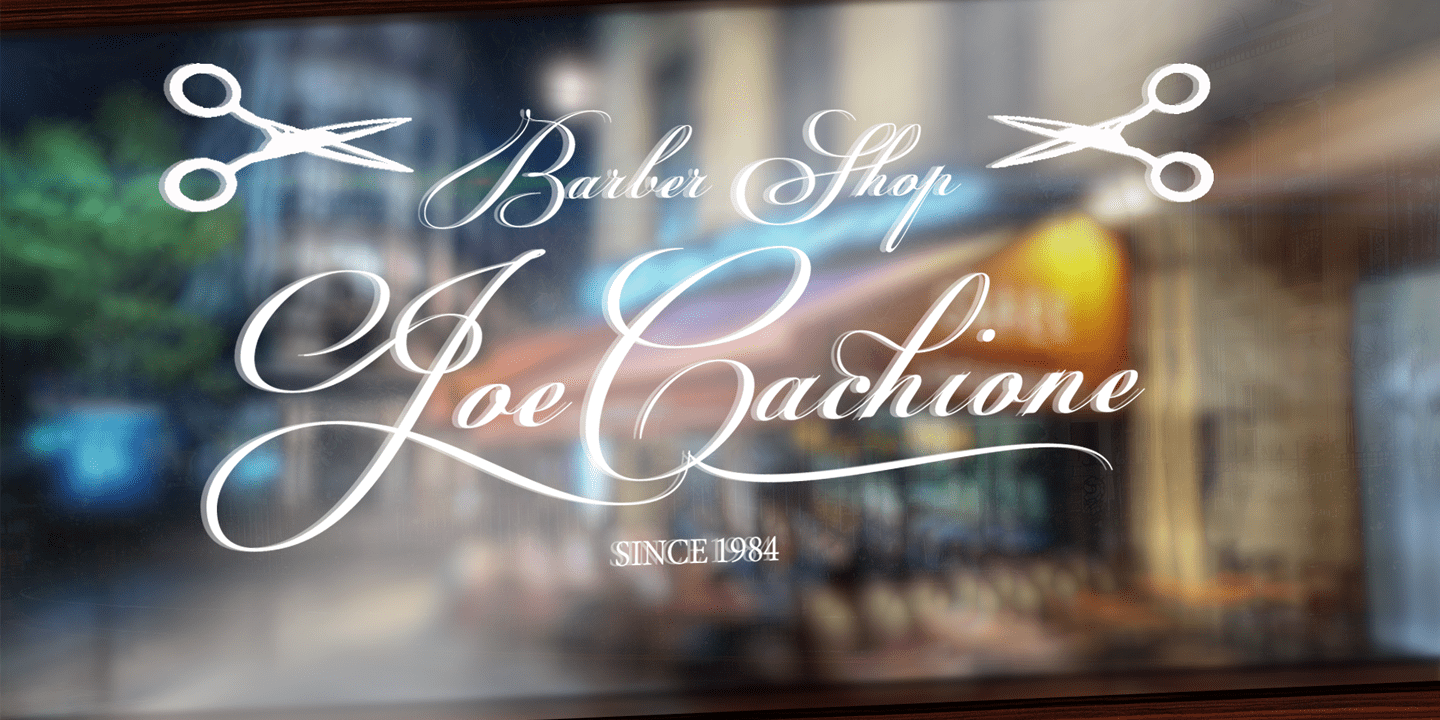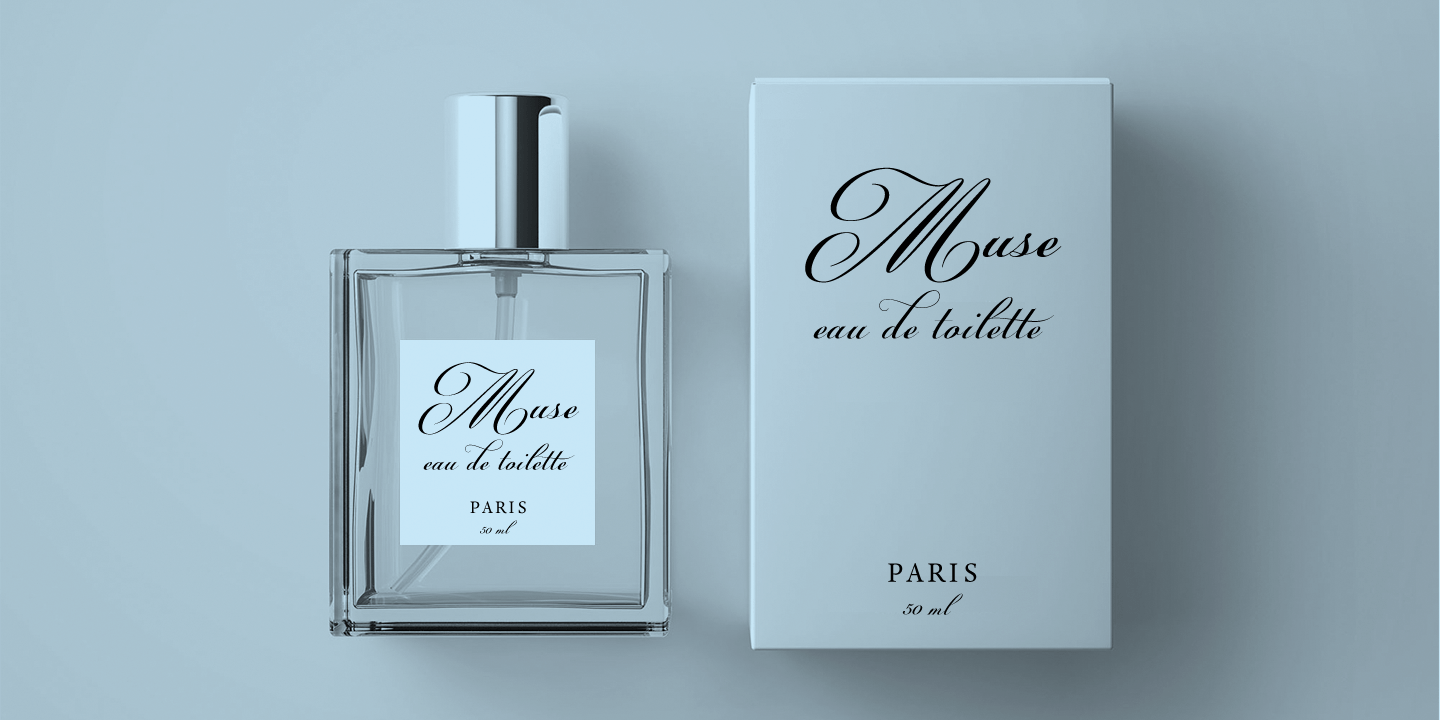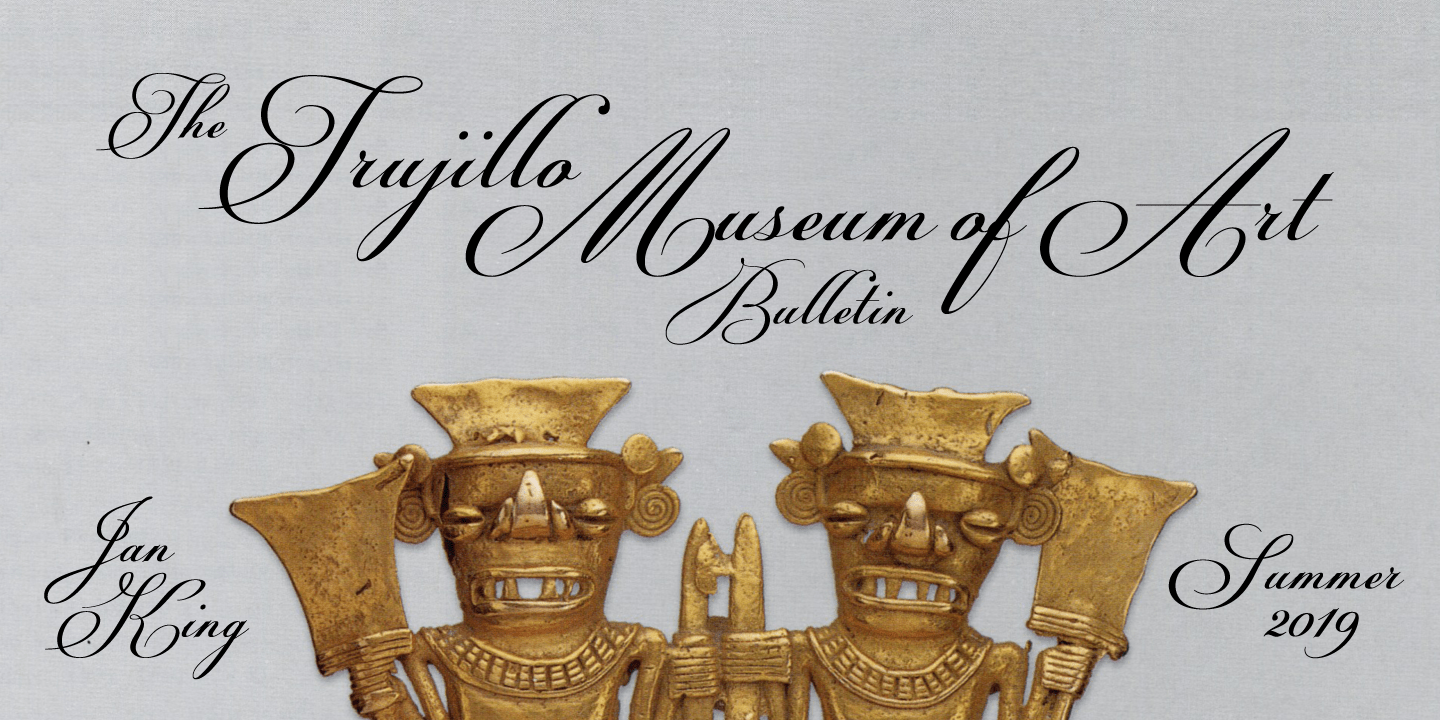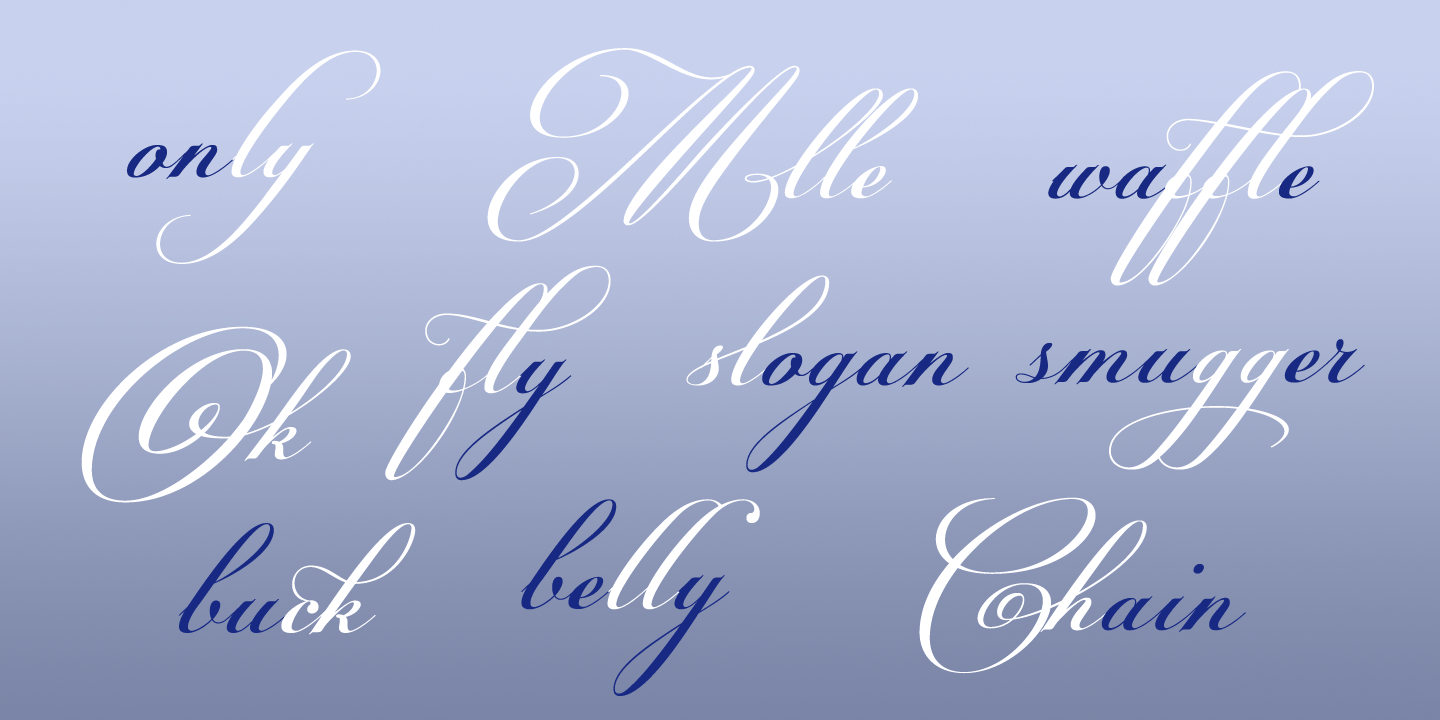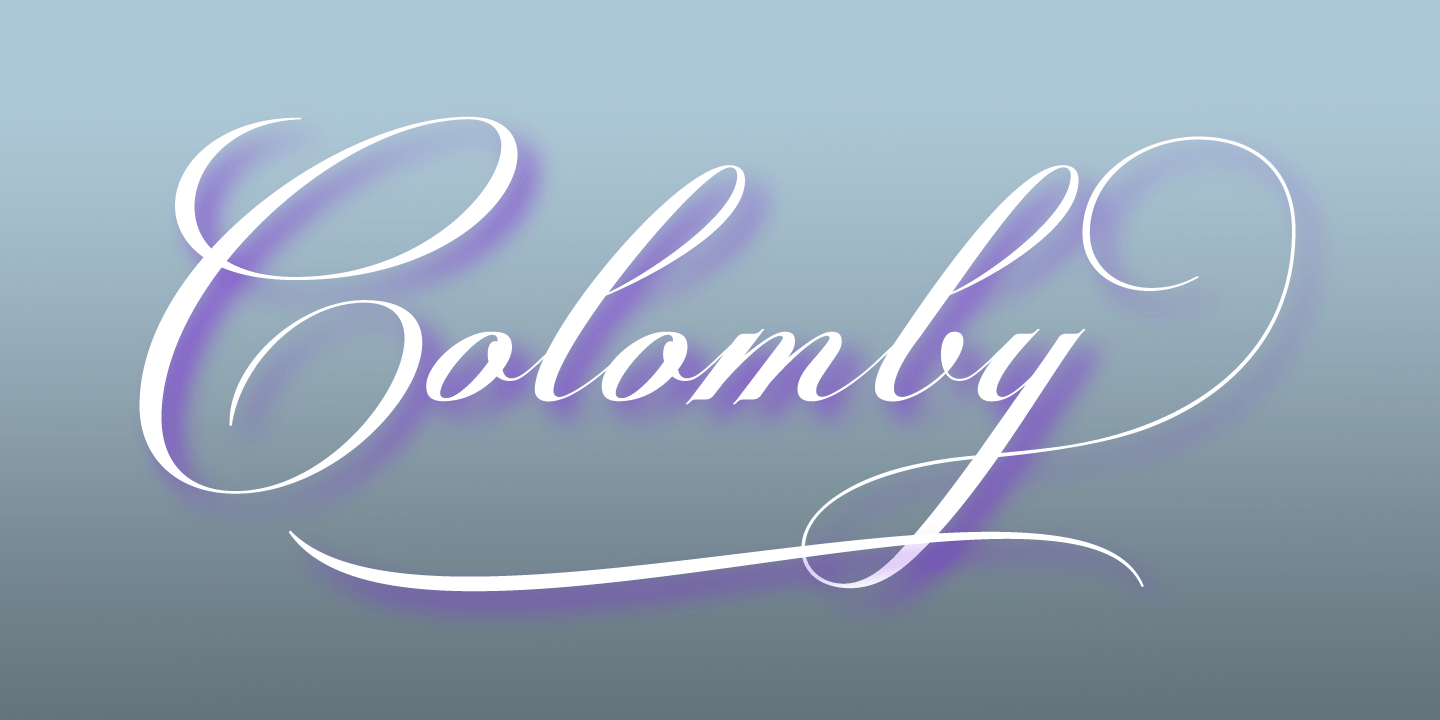
Colomby
About Colomby
Colomby is a contemporary calligraphic font with classical roots, based on an 18th-century English manuscript. It is carefully designed, with a special emphasis on the connection of the letters, with high ascenders to give rise to the ornaments of the…